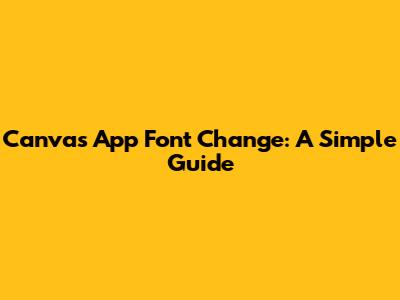
Canvas App Font Change: A Simple Guide
Hey everyone! Ever wondered how to change font on canvas app? You know, those apps you whip up using Power Apps? Well, you're in the right place! Changing the font in your canvas app is super important for making it look good and, more importantly, easy to read. Let's dive into how you can do this, making your app design game strong.
Why Font Matters in Your Canvas App
Alright, first things first, why should you even care about fonts? Well, font choice is actually a big deal in app design. It's not just about what looks pretty; it's about functionality and user experience. Picking the right font can make your app a breeze to use, while the wrong one can make users want to throw their phones across the room (kidding... mostly!).
• Readability: The main goal is clear communication, right? A font that's easy on the eyes means users can effortlessly read the information. This is especially crucial for apps with a lot of text, like news apps or those with detailed instructions.
• Branding: Fonts contribute a lot to your app's brand identity. You can use fonts to convey a specific tone. Are you aiming for a sleek, modern look, or something more playful and friendly? The font choice plays a major role.
• Accessibility: Keep in mind that some users have visual impairments. Choosing a font with good contrast and clear letterforms ensures that everyone can use your app comfortably. This means larger sizes, and avoiding overly decorative fonts.
• User Experience (UX): A well-chosen font improves the overall UX. It makes the app feel polished and professional. It also helps guide users' eyes, drawing their attention to important elements.
Basically, font selection is critical for usability and overall app appeal. So, when building your canvas app, taking time to choose the right fonts will greatly affect the user experience.
Step-by-Step Guide to Changing Fonts in Your Canvas App
Now, let's get into the nitty-gritty of how to change font on canvas app. It's easier than you might think. Here’s a detailed, step-by-step guide to help you out:
1. Select Your Text Control: First, go to your canvas app and pick the text control you want to modify. This could be a label, a text input box, or any other control that displays text. Just click on it to select it.
2. Access the Font Properties: After selecting your control, look over on the right-hand side, in the properties panel. You'll see a bunch of options, but what you want to focus on is the “Text” properties group. Here, you'll find the properties related to the appearance of text.
3. Choose Your Font: Within the “Text” properties group, you'll see a dropdown menu labeled “Font”. This is where the magic happens! Click on the dropdown menu, and you'll see a list of available fonts. Power Apps supports a variety of fonts, so you'll have options to choose from.
4. Pick a Font: Browse through the font options. The best practice is to select a font that suits your app's style and is easy to read. For example, some common fonts are Arial, Calibri, or Consolas.
5. Adjust Font Size: Right below the “Font” option, there’s a “Font size” property. Select your desired font size. Bigger is often better for readability, especially for older users or in apps with a lot of text.
6. Style Your Text: You can also apply bold, italics, and underlines to your text. Look for the “Font weight” property (for bold) and “Italic” property (for italic) and set them as needed. This adds emphasis and visual interest to your text.
7. Change Text Color: The “Color” property lets you choose the text color. Make sure the color contrasts well with the background to enhance readability. Avoid colors that are too similar to the background.
8. Test and Refine: After making these changes, always preview your app to see how the changes look. Adjust the font, size, and color until you get the perfect look and feel. Remember, it's all about making the text easy to read and fitting with your overall app design.
Following these steps, you'll have full control over the fonts in your canvas app. Enjoy the process of designing your app to make it visually attractive and easy for your users to use.
Advanced Font Customization Techniques
Alright, now that you've got the basics down, let’s dig into some advanced techniques. This is where you can take your font game to the next level. Let's explore some more advanced font customization tips, to show how to change font on canvas app effectively:
• Using Custom Fonts: Want to use a font that isn’t available in the standard Power Apps list? You can upload custom fonts! But keep in mind that custom fonts need to be in the .ttf or .otf format. You can then add the font to your app through the app settings, allowing you to use that custom font throughout the app.
• Dynamic Font Changes: Make font changes based on the data or user actions. You can use formulas to set the font properties dynamically. For example, if you want the font size to change based on the user's screen size, you can use the Screen.Width property to adjust the font size accordingly. This is perfect for responsive design.
• Font and Theme Consistency: Keep your font choices consistent throughout your app. Create a theme or style guide to ensure all text elements have the same font, size, and color. This makes your app look more professional and improves usability.
• Font Variables: Create variables to store your font choices. Using variables makes it easy to change the font across your app without going through each control individually. This also makes the app design easier to update and maintain.
• Conditional Formatting: Use conditional formatting to change the font properties based on certain conditions. For instance, you could highlight text in red if a value exceeds a certain threshold. This helps draw attention to important information.
By leveraging these advanced customization techniques, you can make your canvas app even more engaging and functional. Remember that these methods are perfect for creating an app design that is customized and easy to manage.
Troubleshooting Common Font Issues
Sometimes, things don’t go as planned. Here are some solutions to common font-related issues:
• Font Not Appearing: If a custom font isn’t showing up, double-check that you've uploaded it correctly and that the format is supported. Also, ensure the font is properly referenced in your app’s settings. In case it still doesn’t work, try clearing your browser’s cache.
• Font is Too Small or Unreadable: Make sure the font size is appropriate for the content and the screen size. Try increasing the size and making sure the font is readable across different devices.
• Font is Not Rendering Correctly on All Devices: Different devices and operating systems can render fonts slightly differently. Test your app on multiple devices and platforms to ensure the font looks consistent. If needed, use a font that is known to render well across most devices.
• Performance Issues: Too many fonts or complex font styles can sometimes affect your app's performance. Stick to a limited number of fonts and try to use system fonts where possible. Ensure your app runs smoothly by optimizing fonts and minimizing the use of complex styling.
• Alignment Problems: Check the alignment of the text if it seems off. Make sure the control size is appropriate for the text, and adjust padding and margins as needed. This ensures that the text looks neat and professional.
When dealing with font issues, always focus on the user experience. Making sure the text is readable and aligned correctly is extremely important. If you encounter any problems, always refer to these troubleshooting steps, and your users will thank you.
Best Practices for Font Selection
Let’s finish up with some best practices to make sure you’re choosing the right fonts for your canvas app:
• Choose Readable Fonts: This is the top priority. Stick to fonts that are easy to read at different sizes and on various devices. Avoid overly decorative or fancy fonts for body text.
• Limit the Number of Fonts: Using too many fonts can make your app look cluttered and unprofessional. Usually, a maximum of two or three fonts is enough: one for headings, one for body text, and maybe a third for accents.
• Consider Font Pairings: Choose fonts that complement each other. Consider combining a sans-serif font for headings with a serif font for body text, or vice versa. Font pairing can make your app's design visually appealing.
• Test on Different Devices: Always test your app on different devices and screen sizes to ensure the fonts render correctly and remain readable. Ensure that your design is adaptable across various platforms.
• Use Font Weight and Styles Sparingly: Bold, italics, and underlines can be helpful for emphasis, but don't overdo it. Too many styles can make your app look messy and hard to read.
• Consider Accessibility: Make sure your font choices are accessible to all users, including those with visual impairments. Use sufficient contrast between text and background, and use larger font sizes for important information.
• Stay Consistent: Keep your fonts consistent throughout your app. Use the same font styles for similar elements to provide a professional and unified look.
By following these best practices, you can create a canvas app that is not only functional but also visually appealing and user-friendly. Your app will look amazing, and more importantly, your users will enjoy using it.
And there you have it! Now you know how to change font on canvas app. Go forth, experiment, and create some awesome apps. Happy designing, everyone! Have fun creating your own apps!